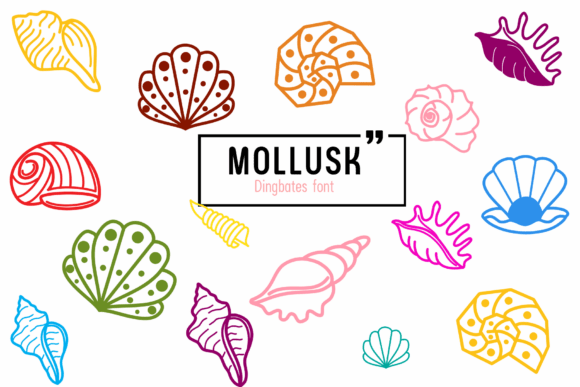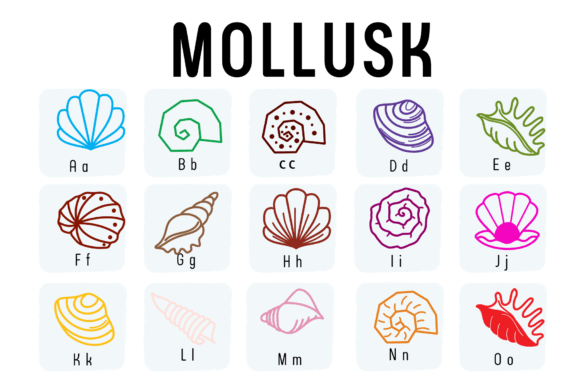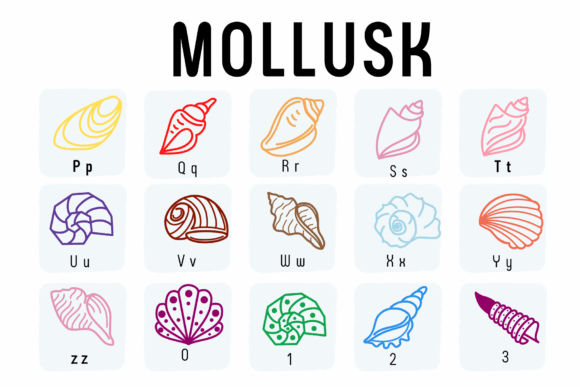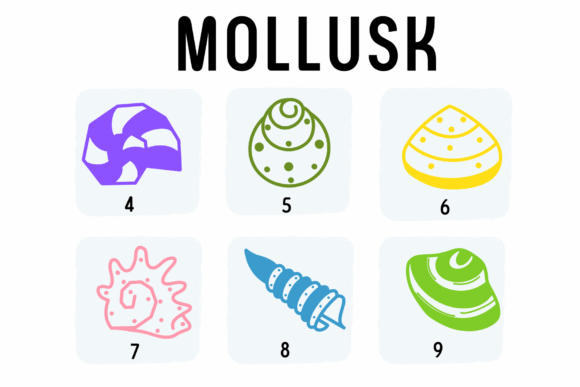
Mollusk Font: A Seashell Dingbats Font for Coastal DIY & Cricut Projects
About the Mollusk Font
Introducing the Mollusk Font, a beautifully crafted typeface designed to elevate your creative projects. Mollusk is a dingbats font with a sketched style. This font can enhance your creative projects such as wedding invitations, DIY, crafts, decorations, logos, and many other creative ideas.
Mollusk’s sketched style is ideal for projects requiring a hand-drawn, whimsical feel. It excels in logos, short headlines, and decorative elements within larger designs, such as wedding invitations or craft projects. Avoid using it for body text or extended passages; its informal nature makes it unsuitable for large amounts of continuous reading.
The font’s personality is playful and informal, lending itself well to brands targeting a younger demographic or those with a handcrafted aesthetic. Consider pairing Mollusk with a clean sans-serif like Open Sans for readability in supporting text or a more structured serif like Garamond for a touch of classic elegance to offset its whimsical nature.
For a more modern feel, a geometric sans-serif such as Futura could create a compelling contrast. Using Mollusk sparingly, as an accent, will maximize its impact and prevent visual clutter.
Mollusk Font Usage Examples
Mollusk Font Example